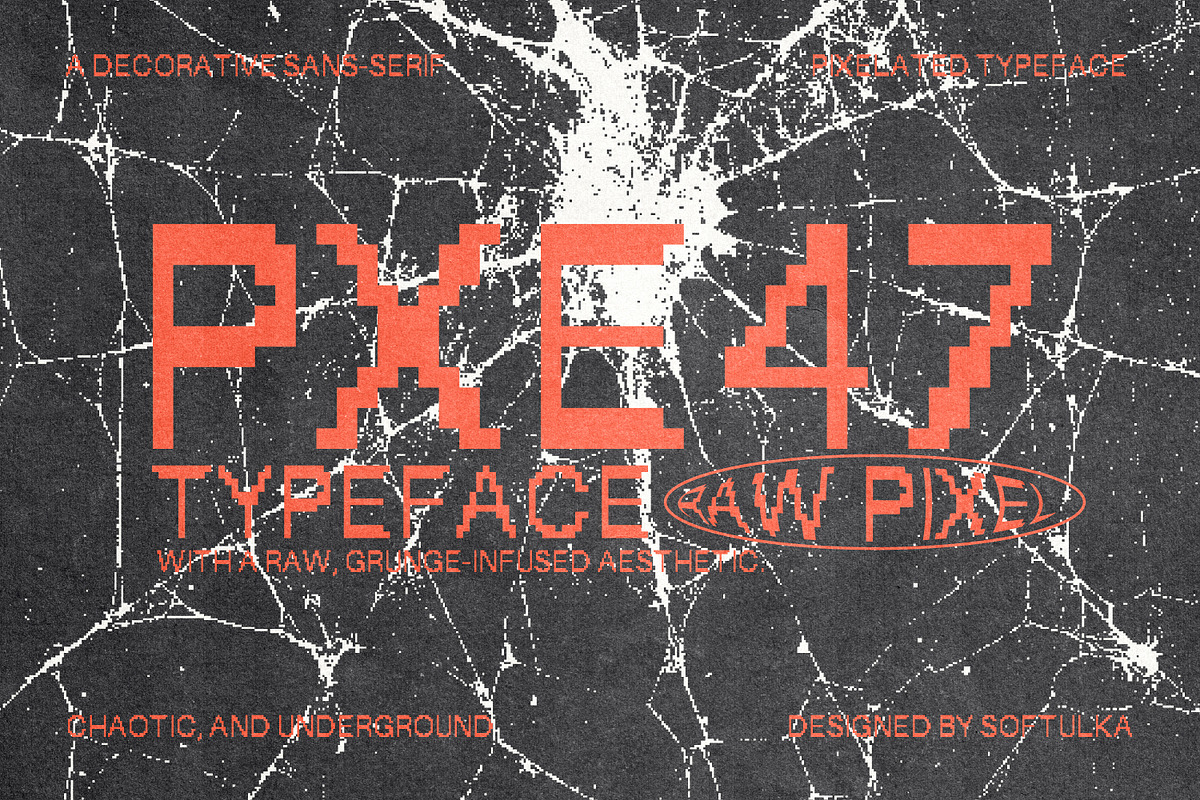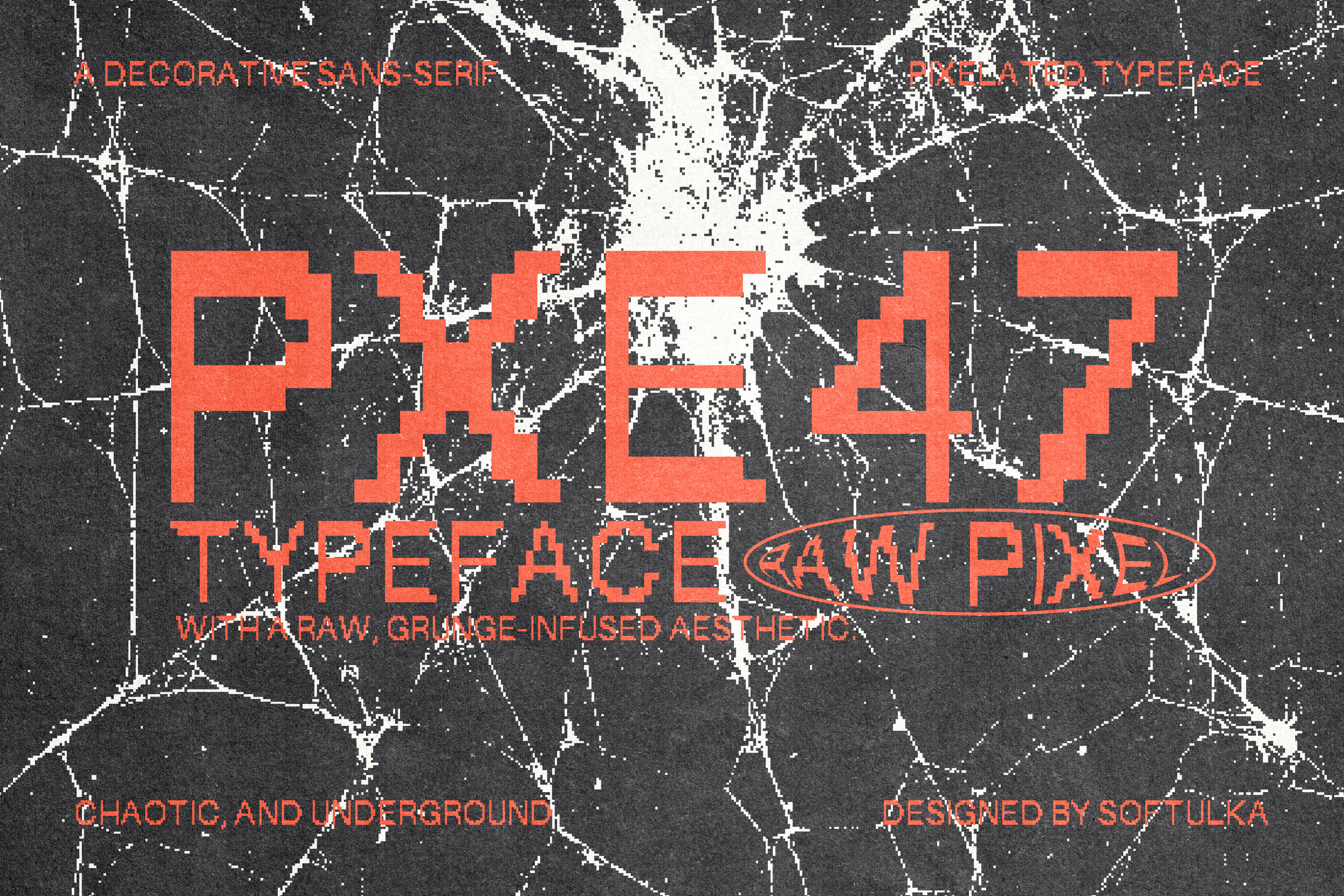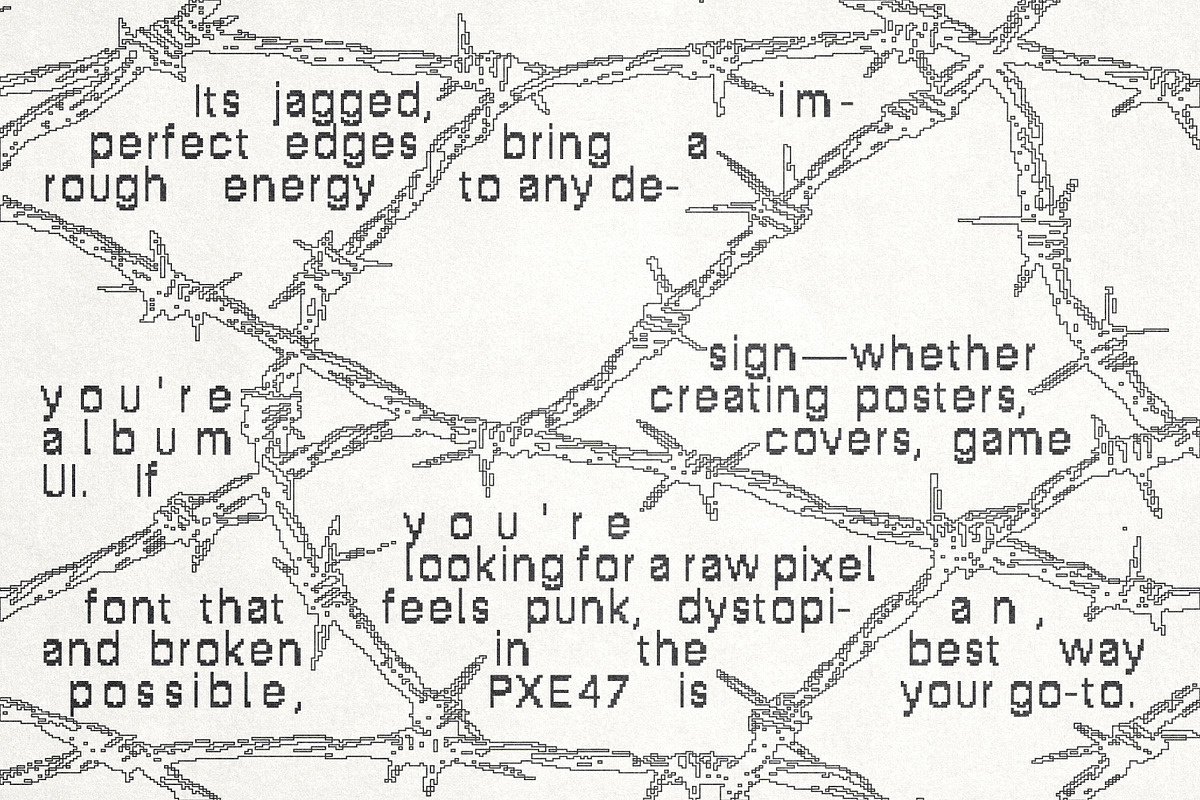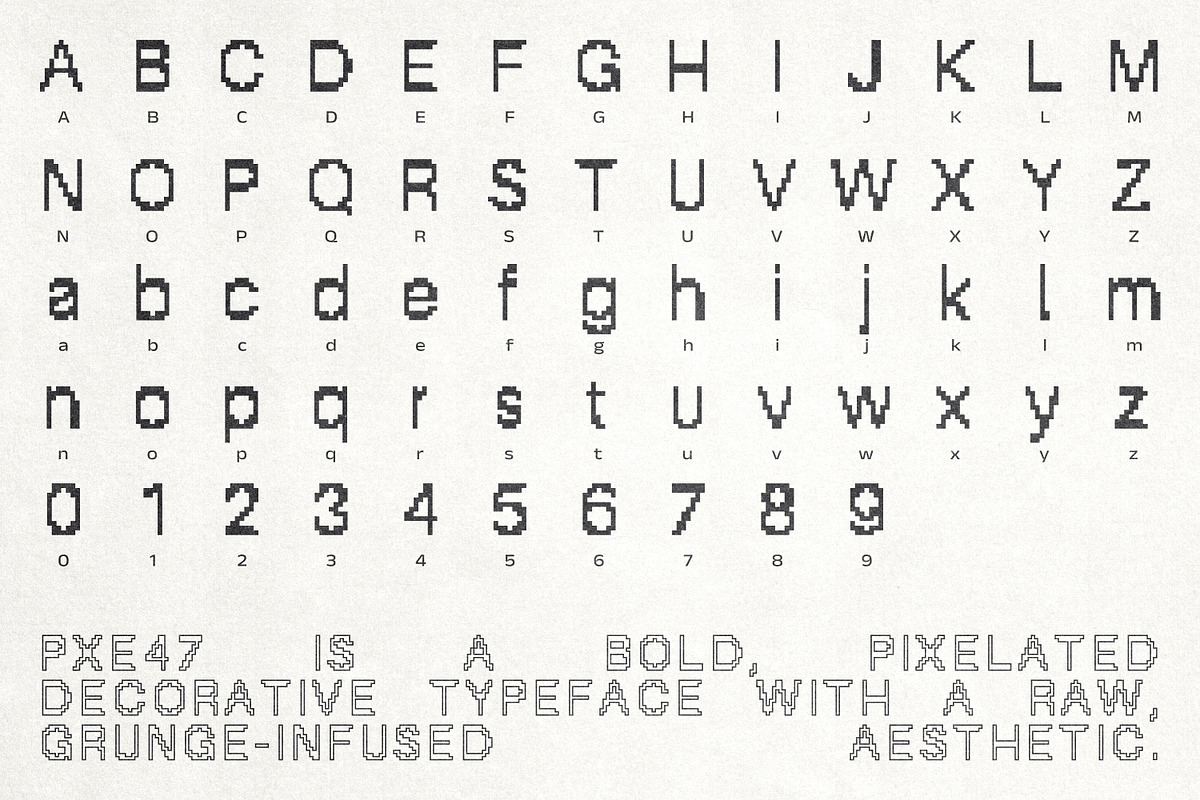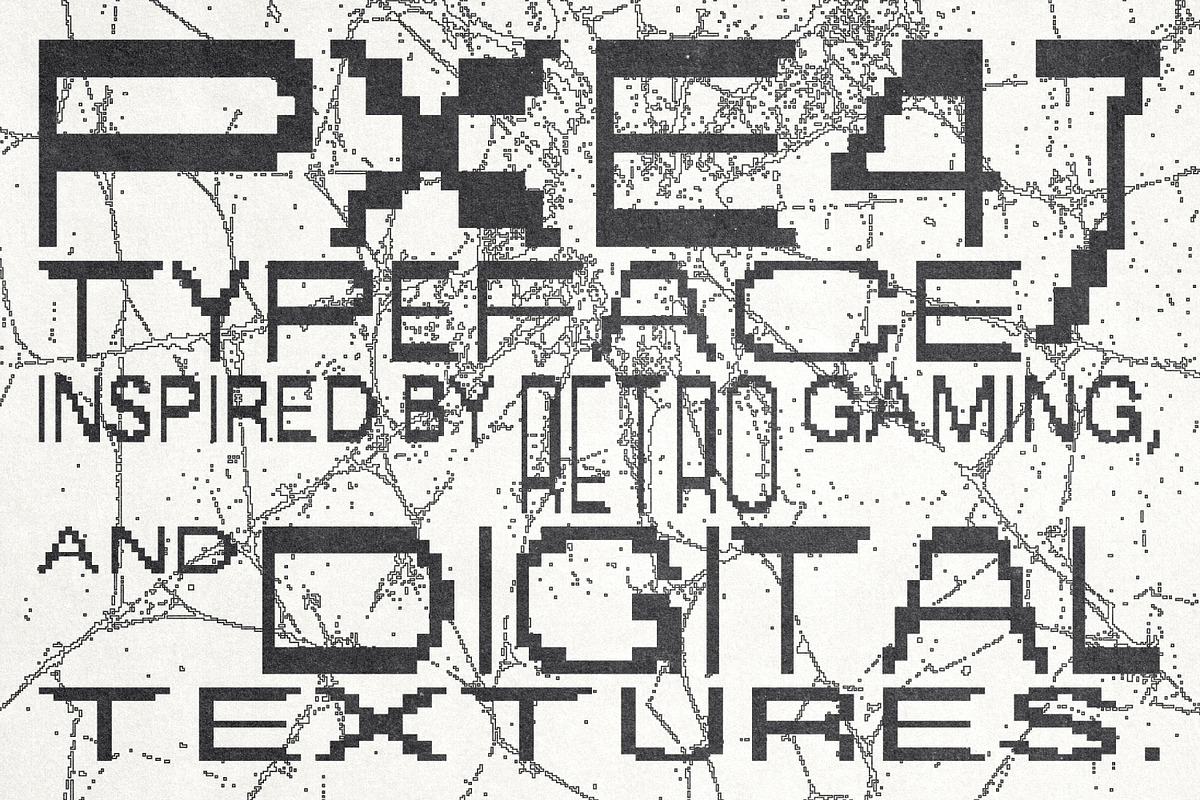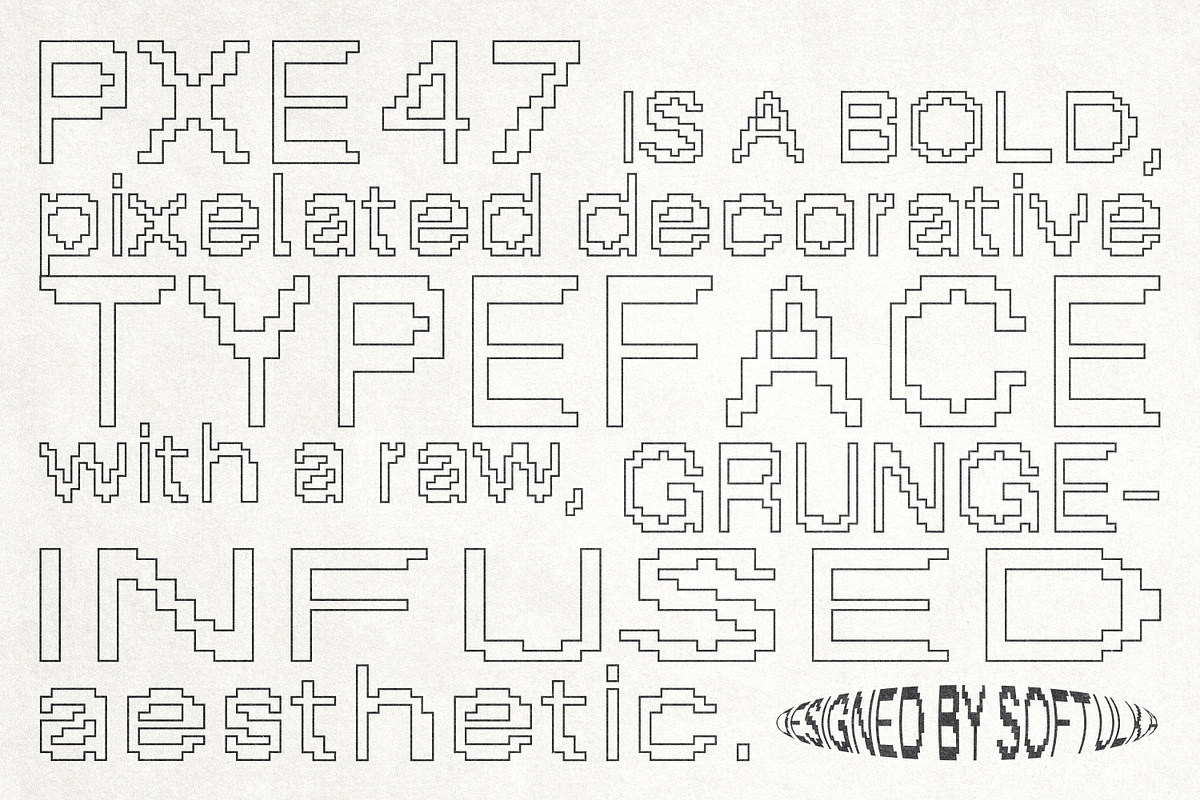
PXE47 Pixelated Typeface
PXE47 is a bold, pixelated decorative typeface with a raw, grunge-infused aesthetic. Inspired by retro gaming, cyberpunk glitches, and distressed digital textures, this font is perfect for projects that need a rebellious, chaotic, and underground vibe. Its jagged, imperfect edges bring a handcrafted, rough energy to any design—whether you're creating posters, album covers, zines, game UI, or edgy branding. If you're looking for a raw pixel font that feels punk, dystopian, and broken in the best way possible, PXE47 is your go-to.